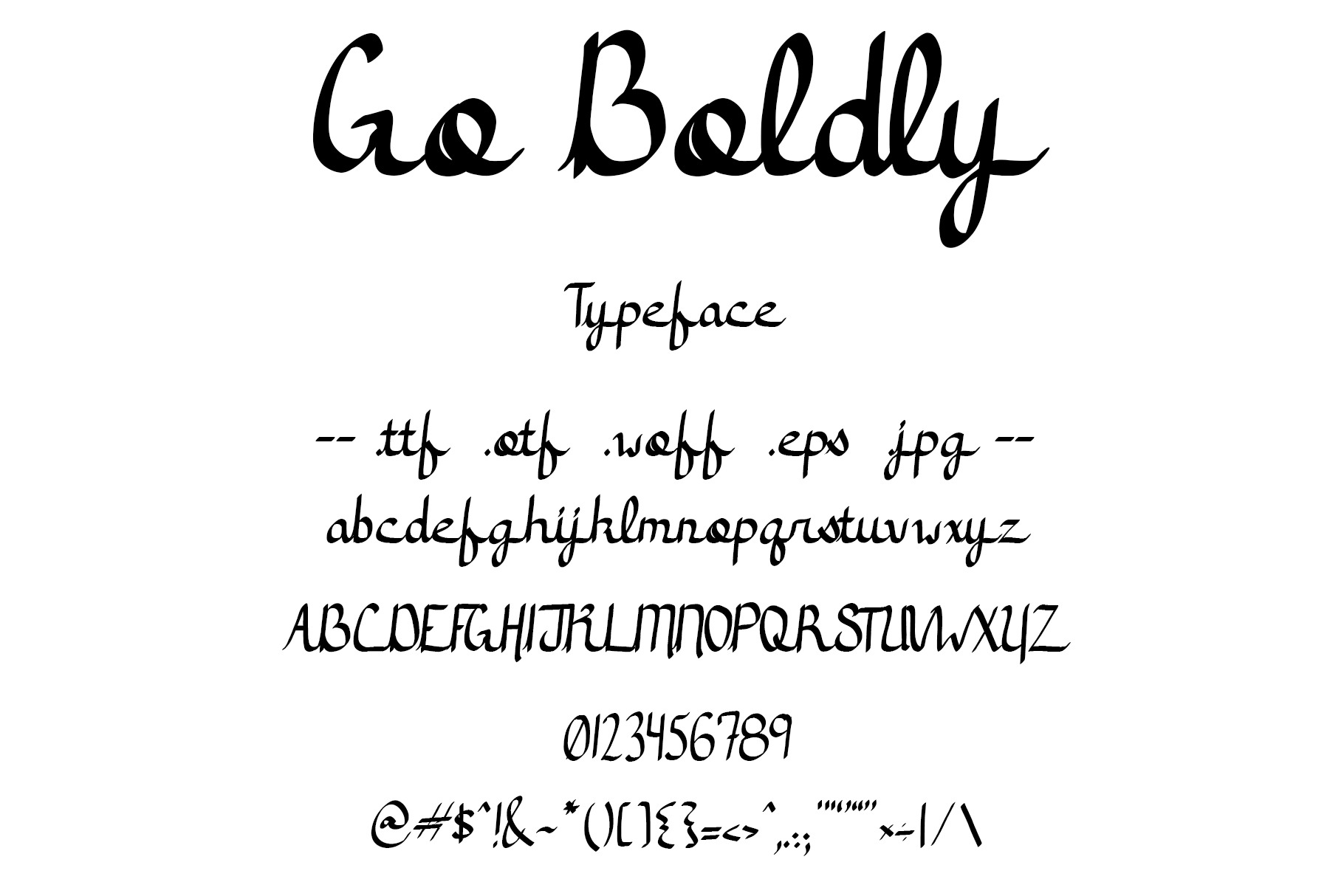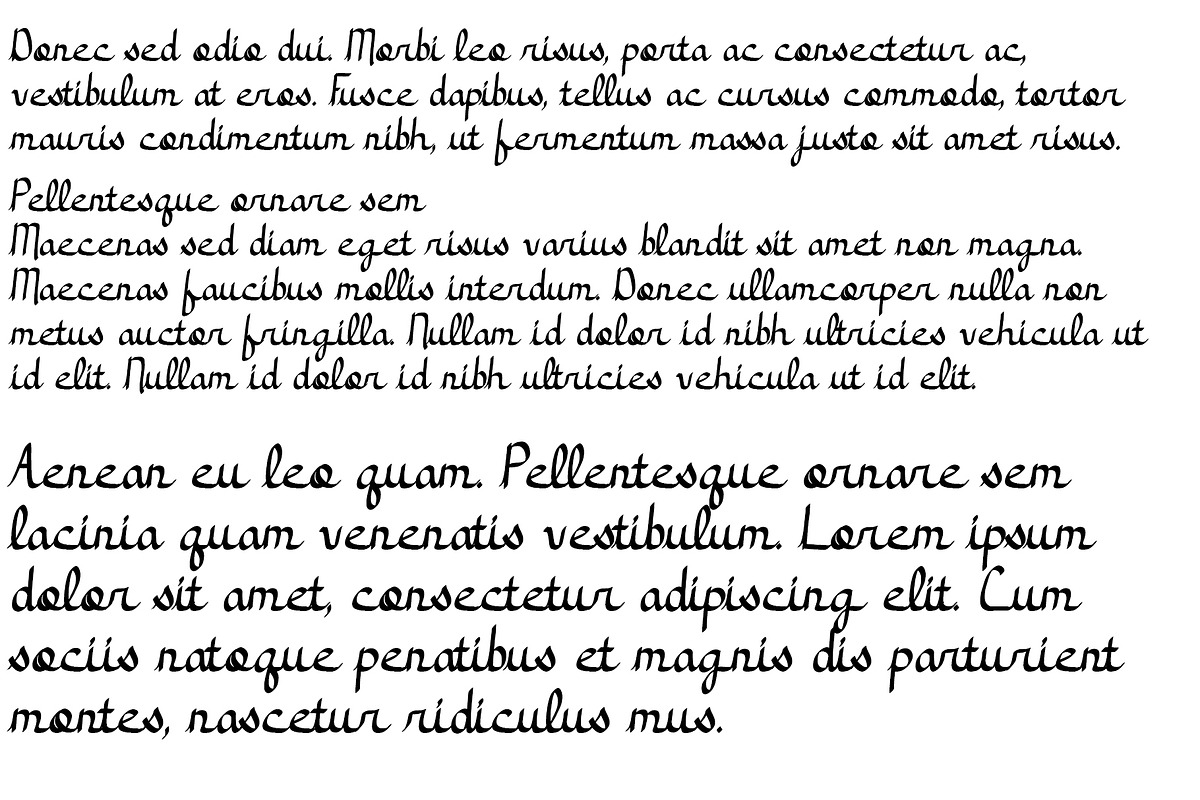
Font Go Boldly Bold Cursive Script
Hand drawn typeface. This font, "Go Boldly" has bold letters that fit together to look like natural handwriting. Cursive script character set.